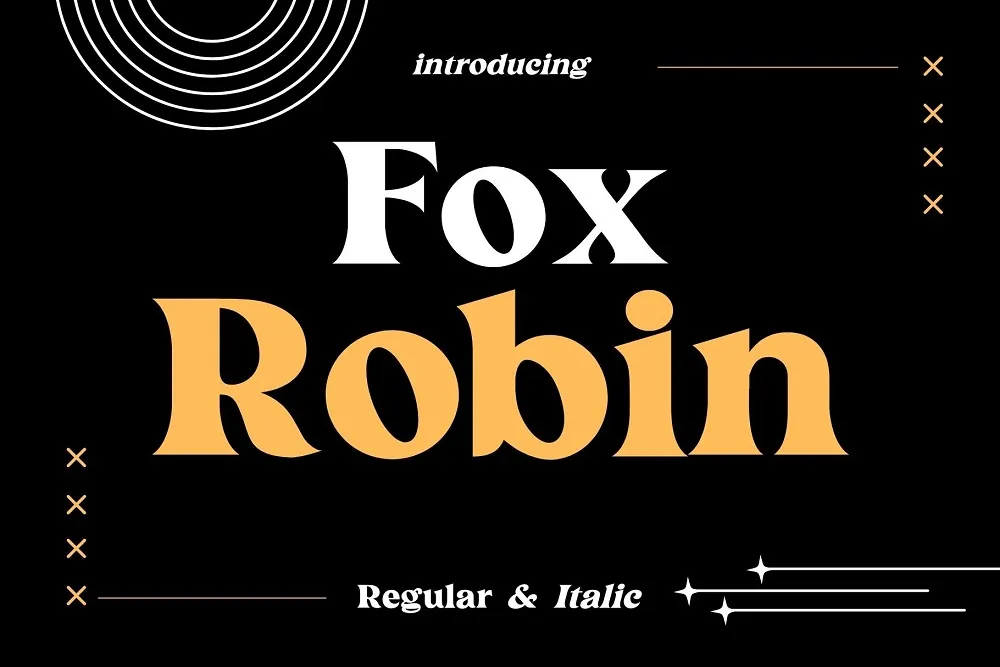
Fox Robin Fonts is a lovely serif font. It goes well with both the contemporary as well as the traditional design ensigns. You can use it for all sorts of projects, starting from bloggers to logos and branding, advertisements, invitations, greeting cards, planners, photo albums, decorations and many other.